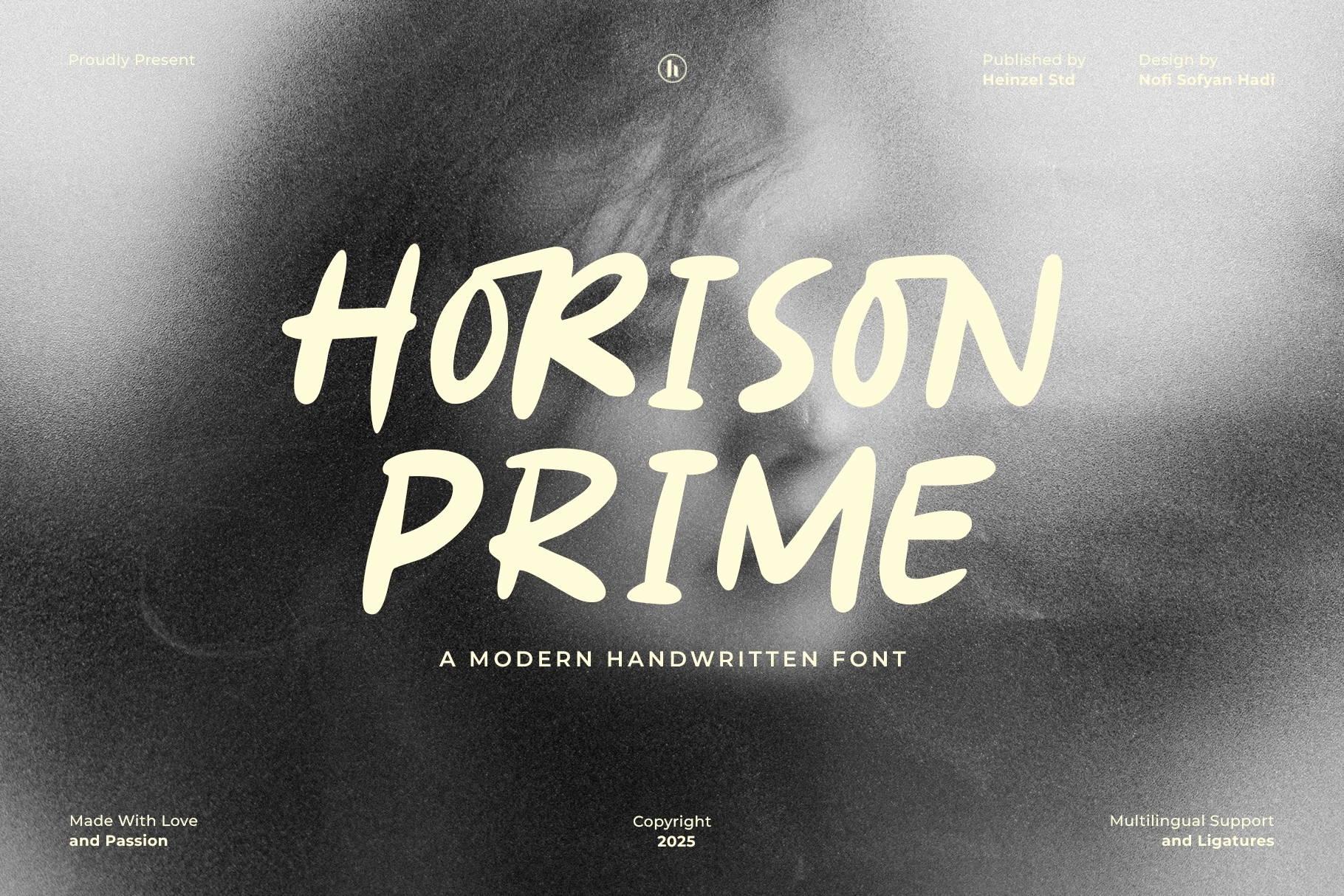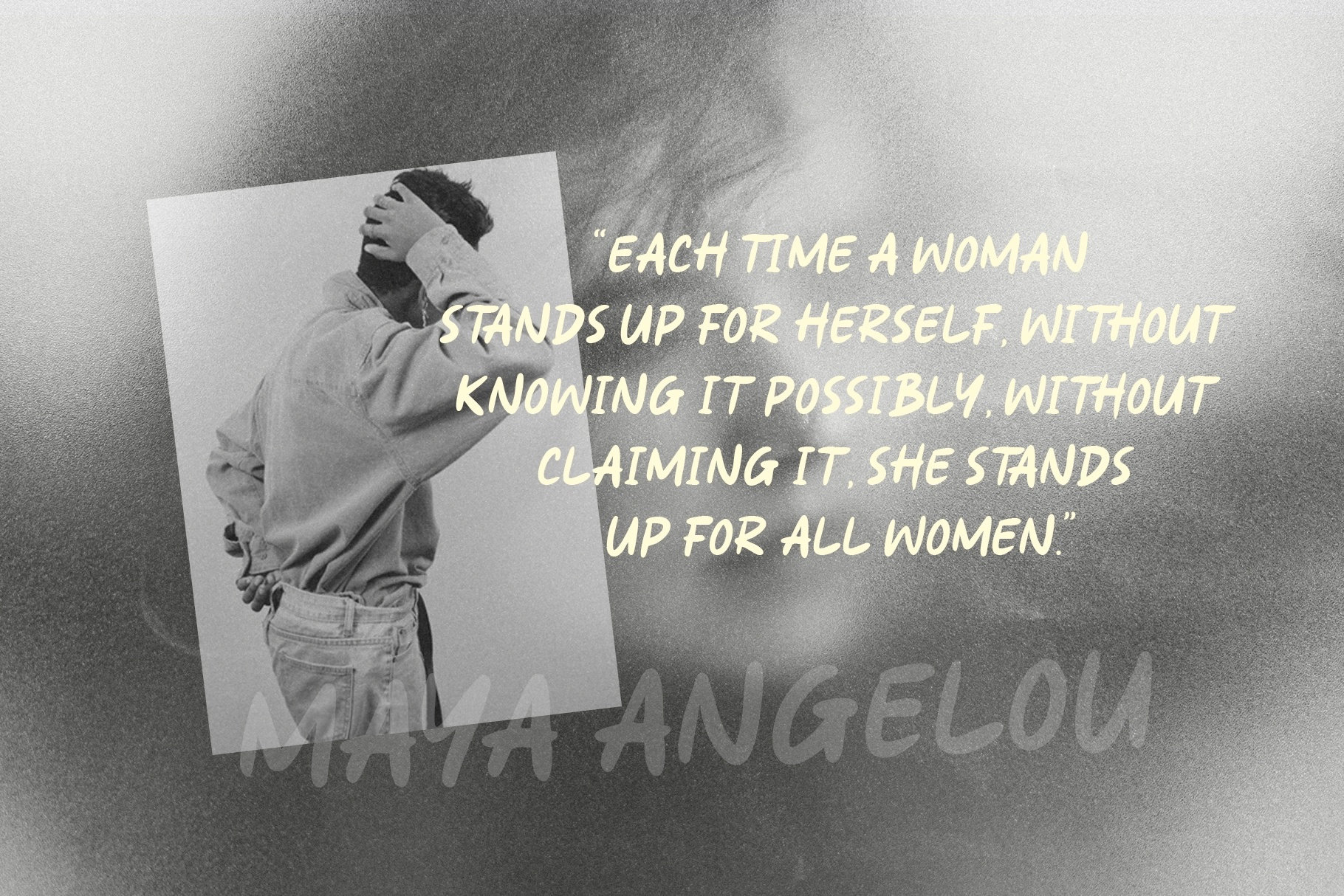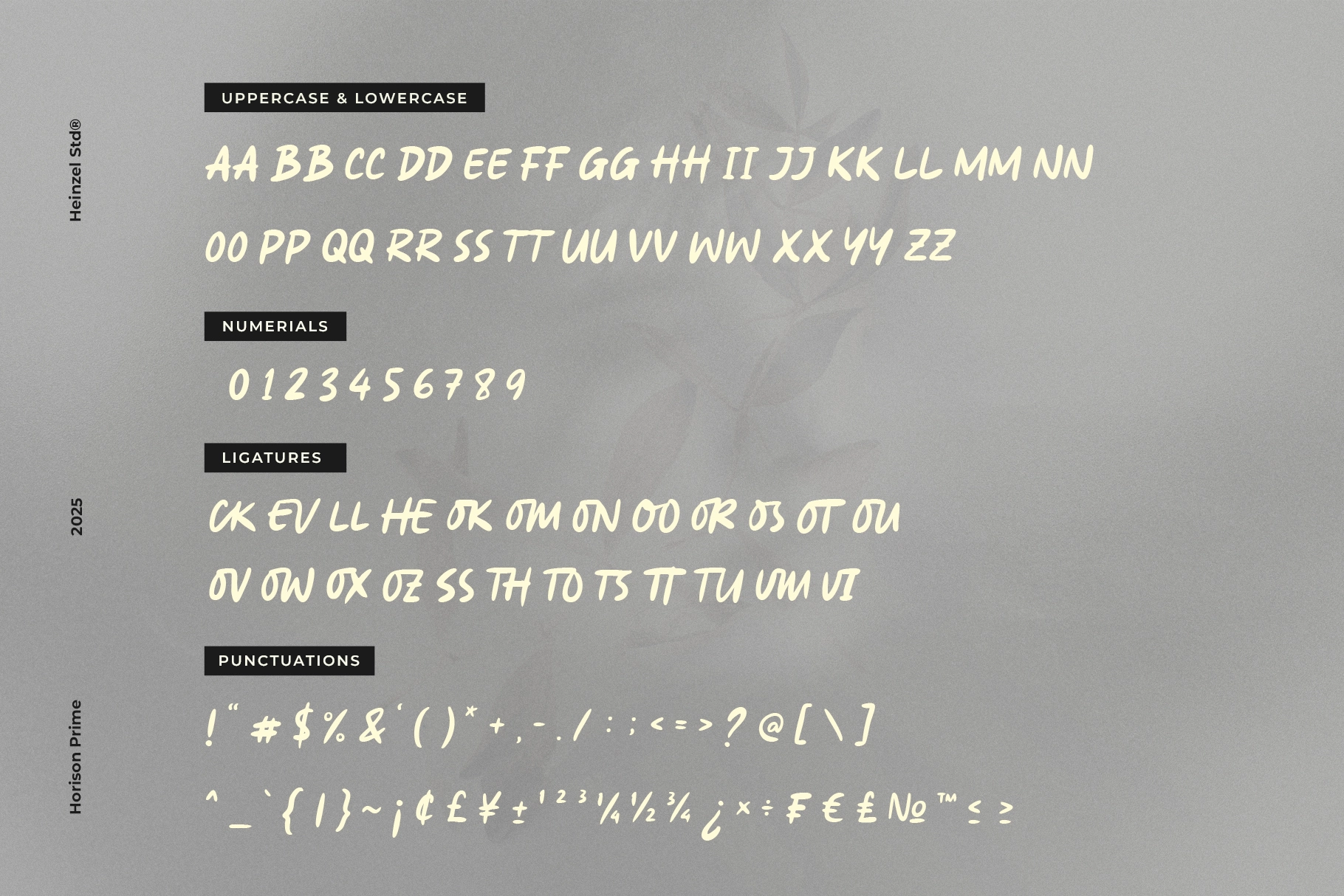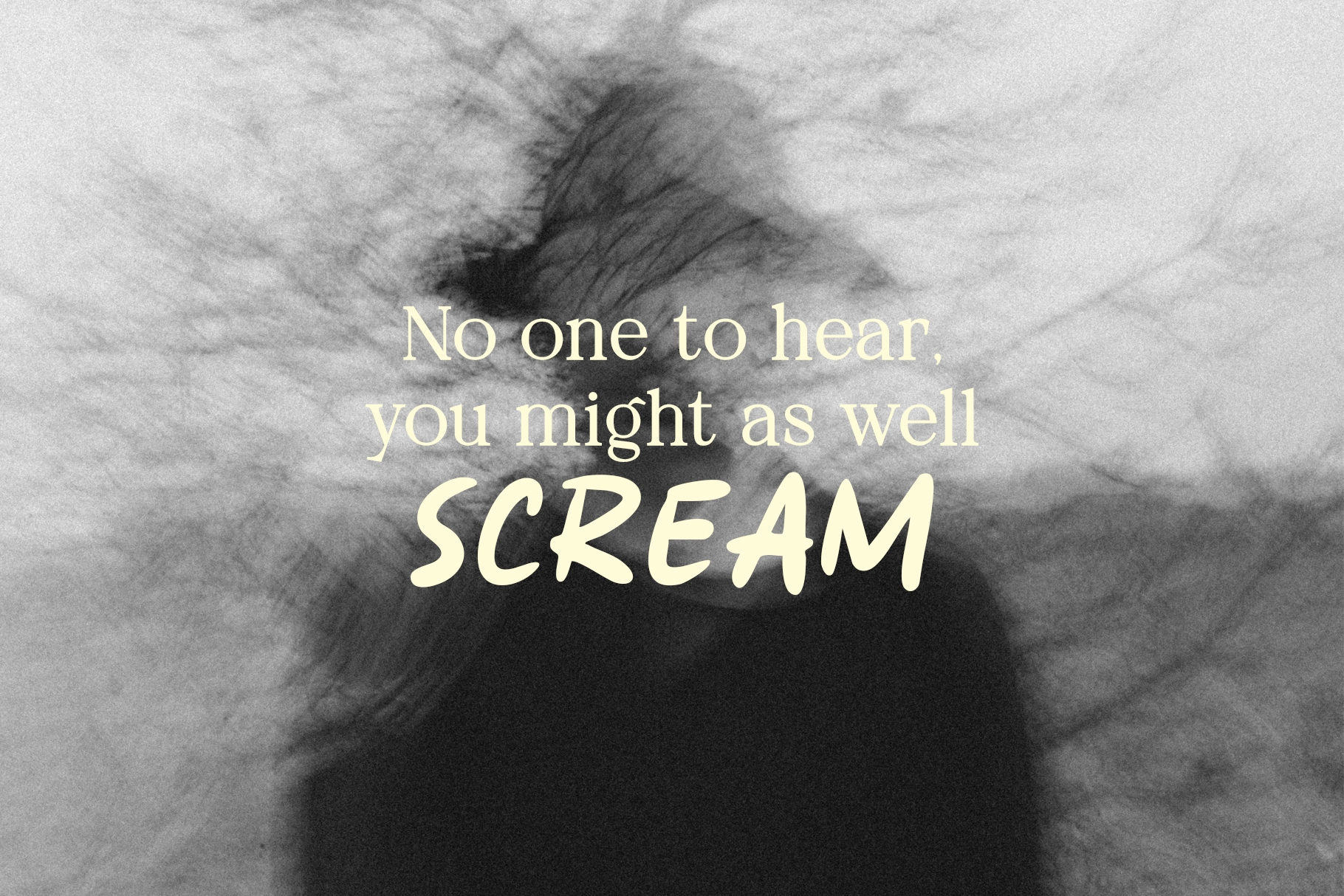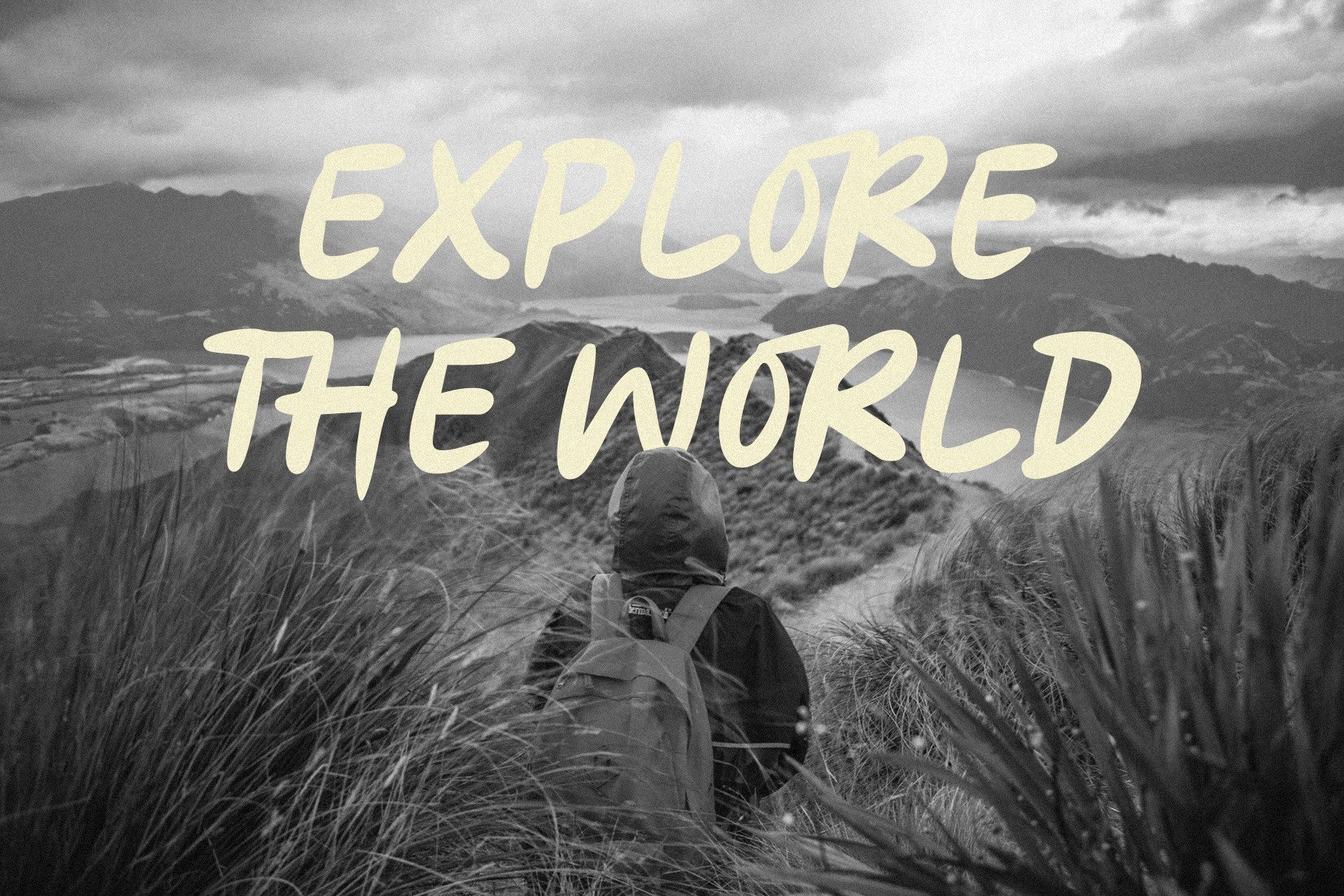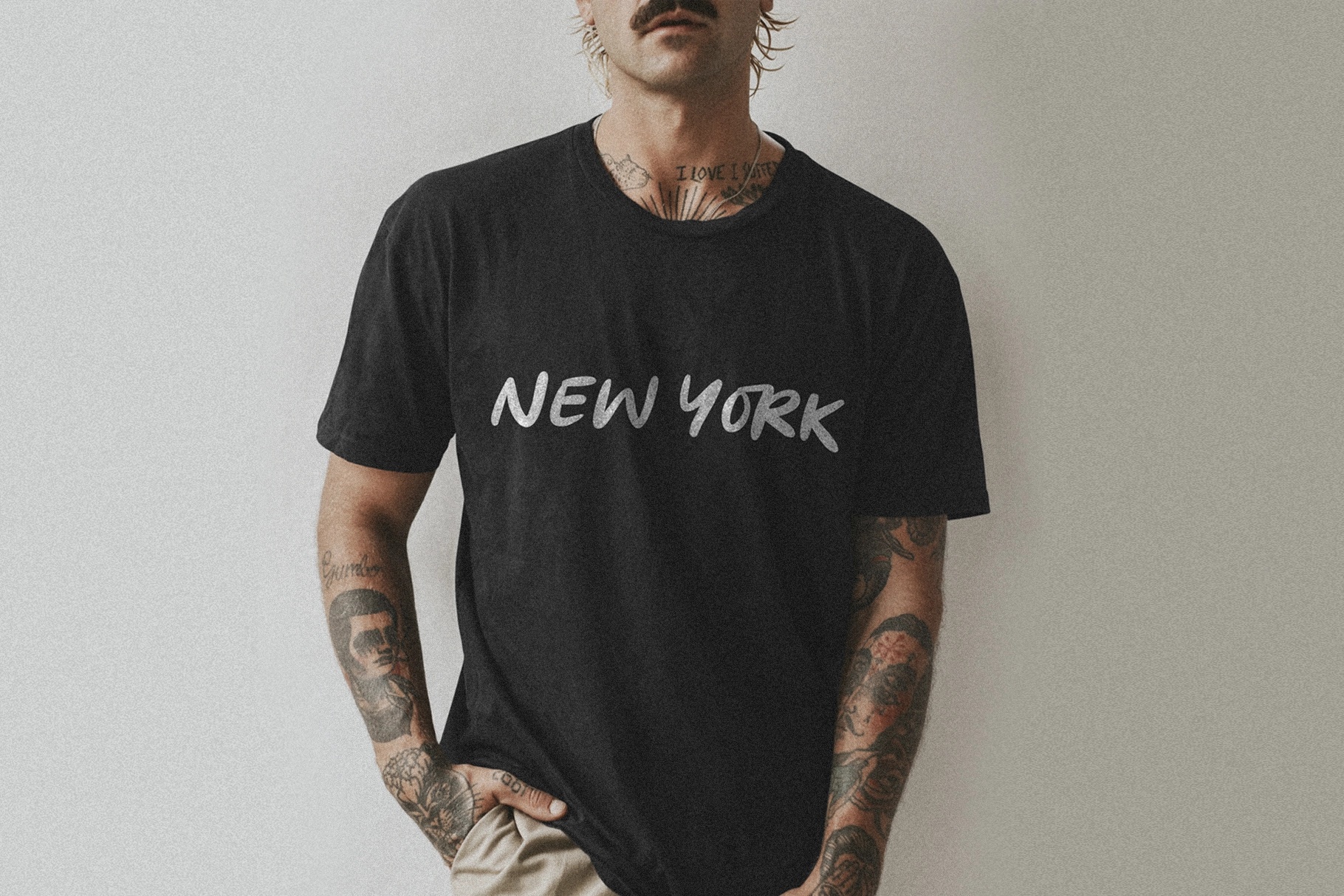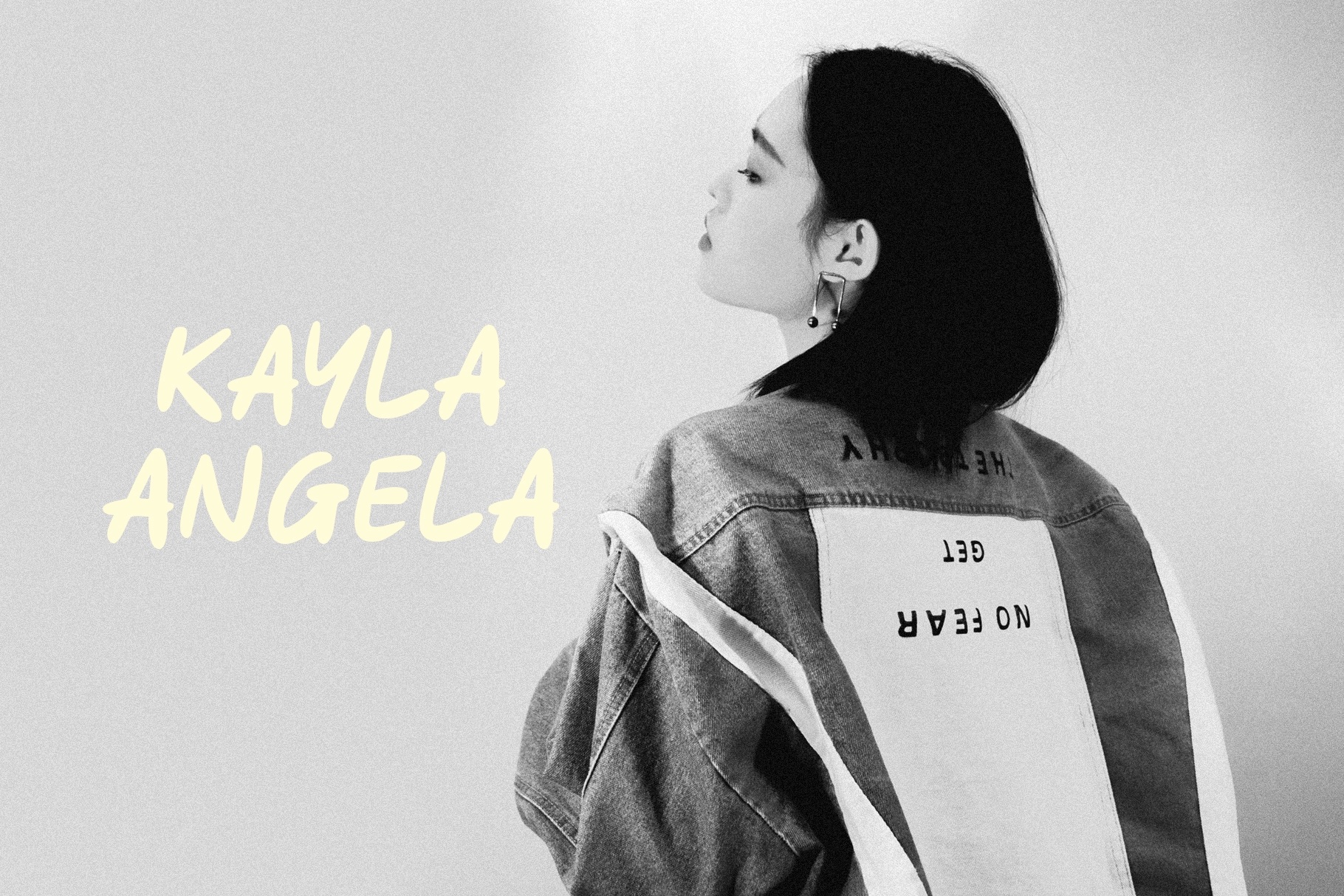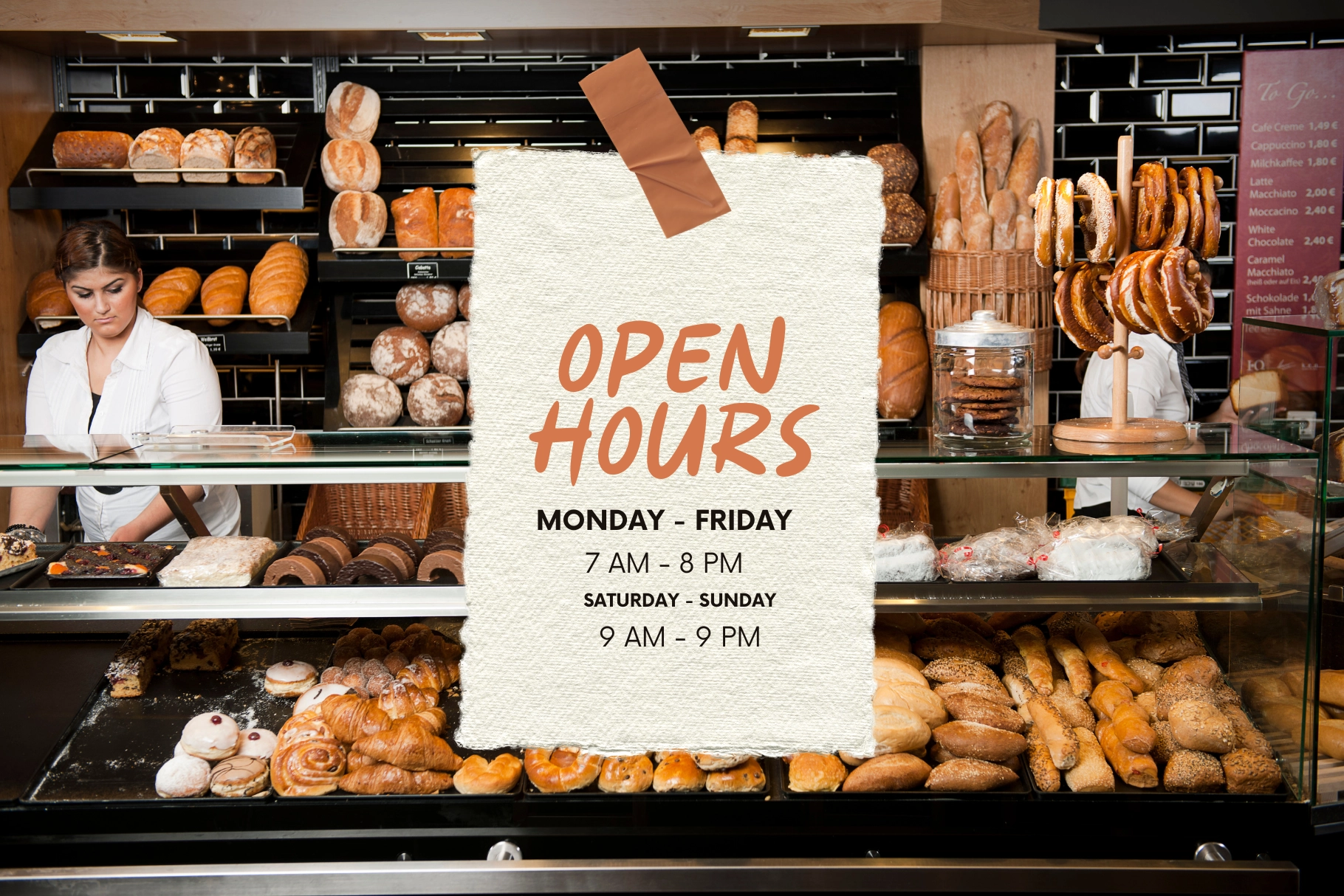
Horison Prime - Handwritten Brush Font
This handwritten brush font has an all-caps voice with loose strokes, angled cuts, and a raw marker-like texture that gives words instant urgency. The letters are bold but not polished flat, with irregular edges and tight ligatures that work well for expressive quotes, moody posters, and rough editorial type.
Horison fits album covers, travel posters, fashion campaigns, social media quotes, zines, packaging, logo marks, event flyers, outdoor graphics, magazine spreads, personal branding, and merch design. It has the directness of a sentence written in one take — probably at 2 a.m., probably on purpose.
- Punctuation & symbols
- Ligatures